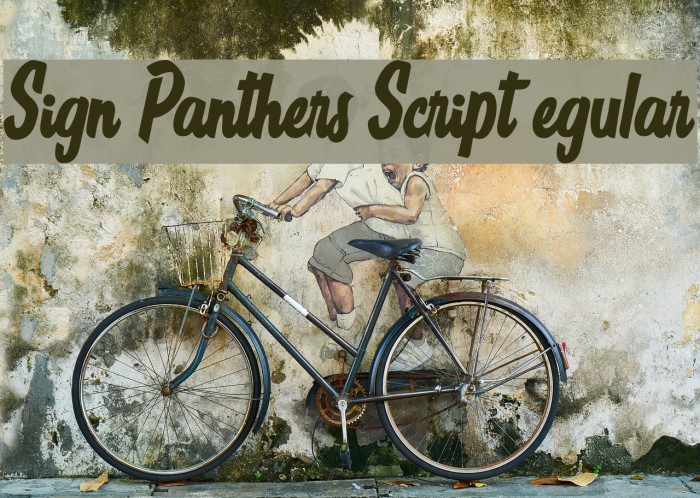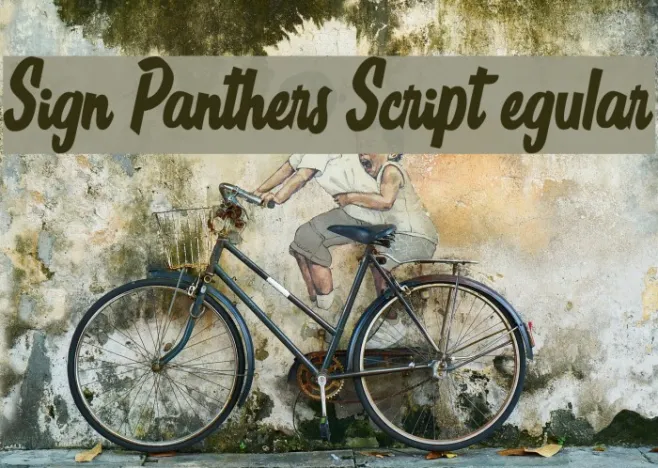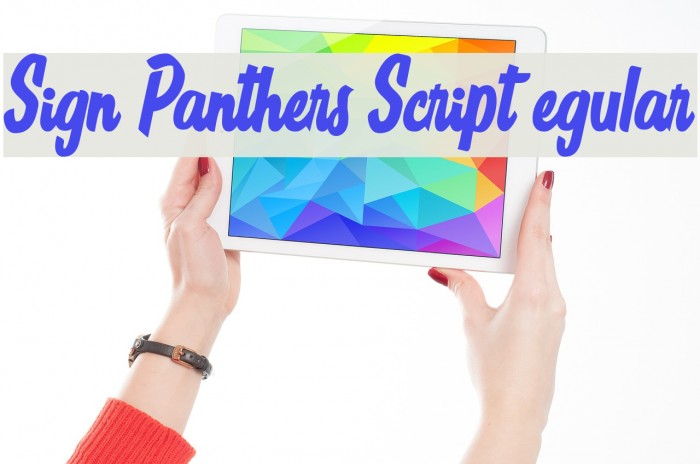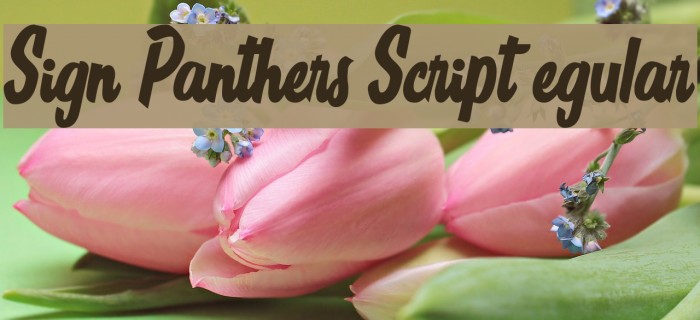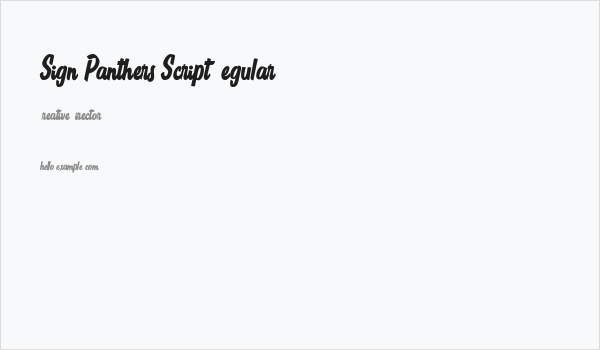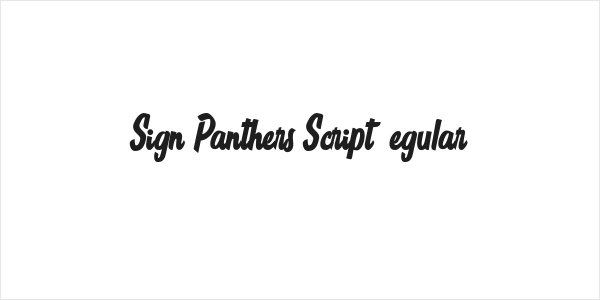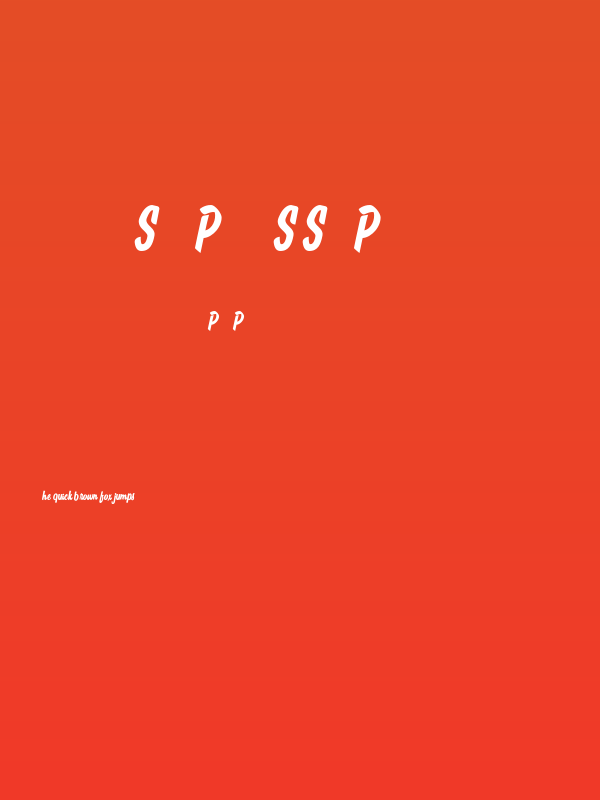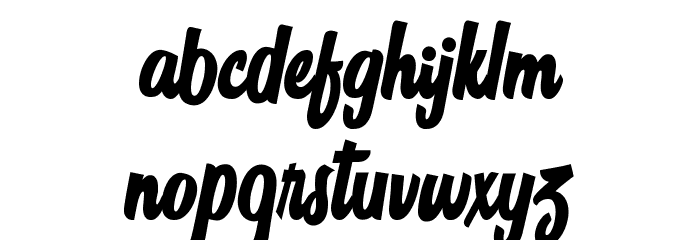
Sign Panthers Script Regular Font
Sign Panthers Script Regular Description
This font features a bold and dynamic script style, characterized by its flowing and connected letterforms. The uppercase letters are distinct and slightly larger, providing a strong visual impact. The lowercase letters maintain a consistent flow, enhancing readability while retaining an artistic flair. The strokes are thick and rounded, giving the font a friendly and approachable feel. The overall design is reminiscent of hand-painted signage, making it ideal for creative and expressive projects.
| Proposed Projects | Ideal for branding, signage, posters, and creative design projects that require a personal and artistic touch. |